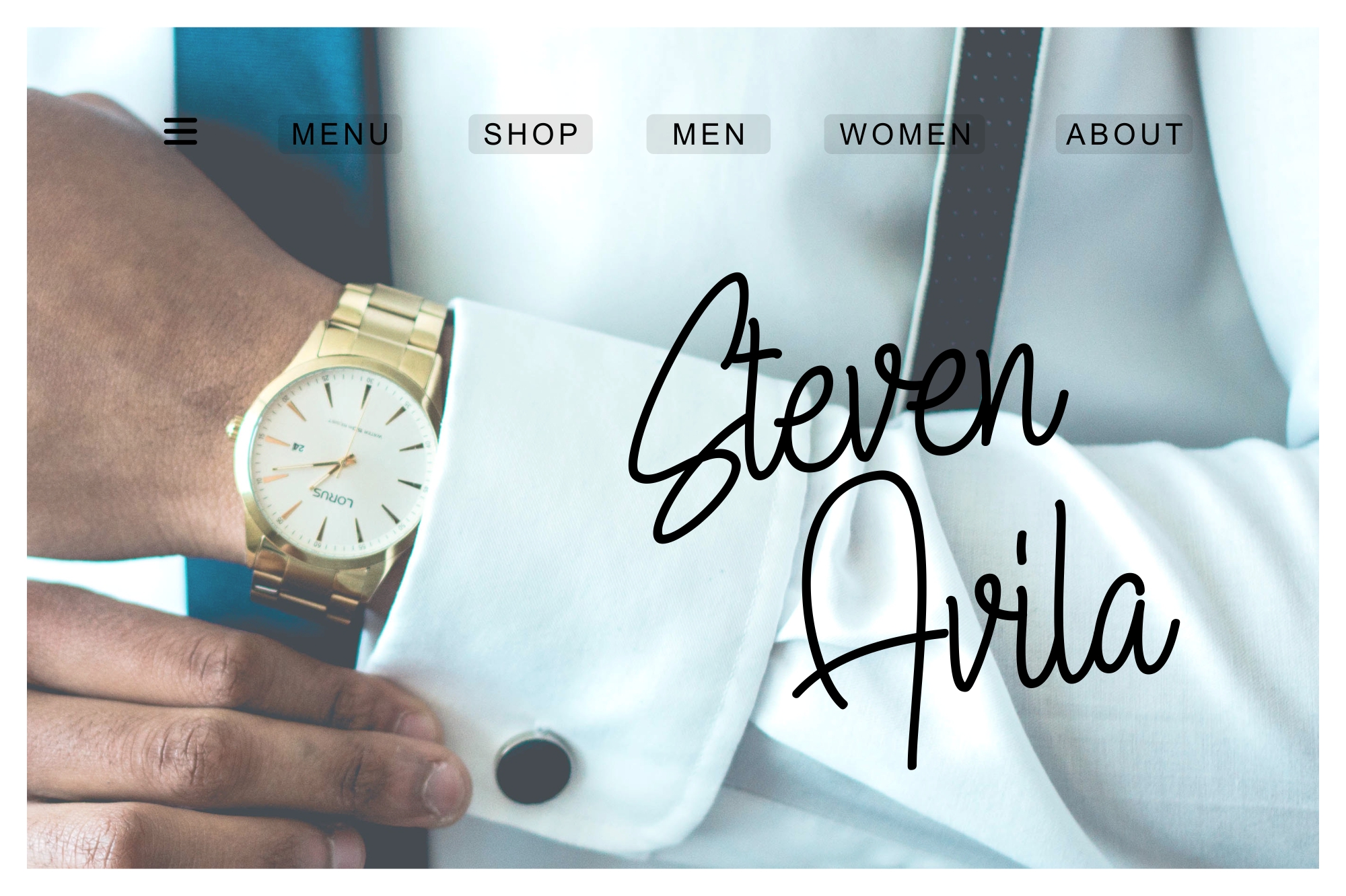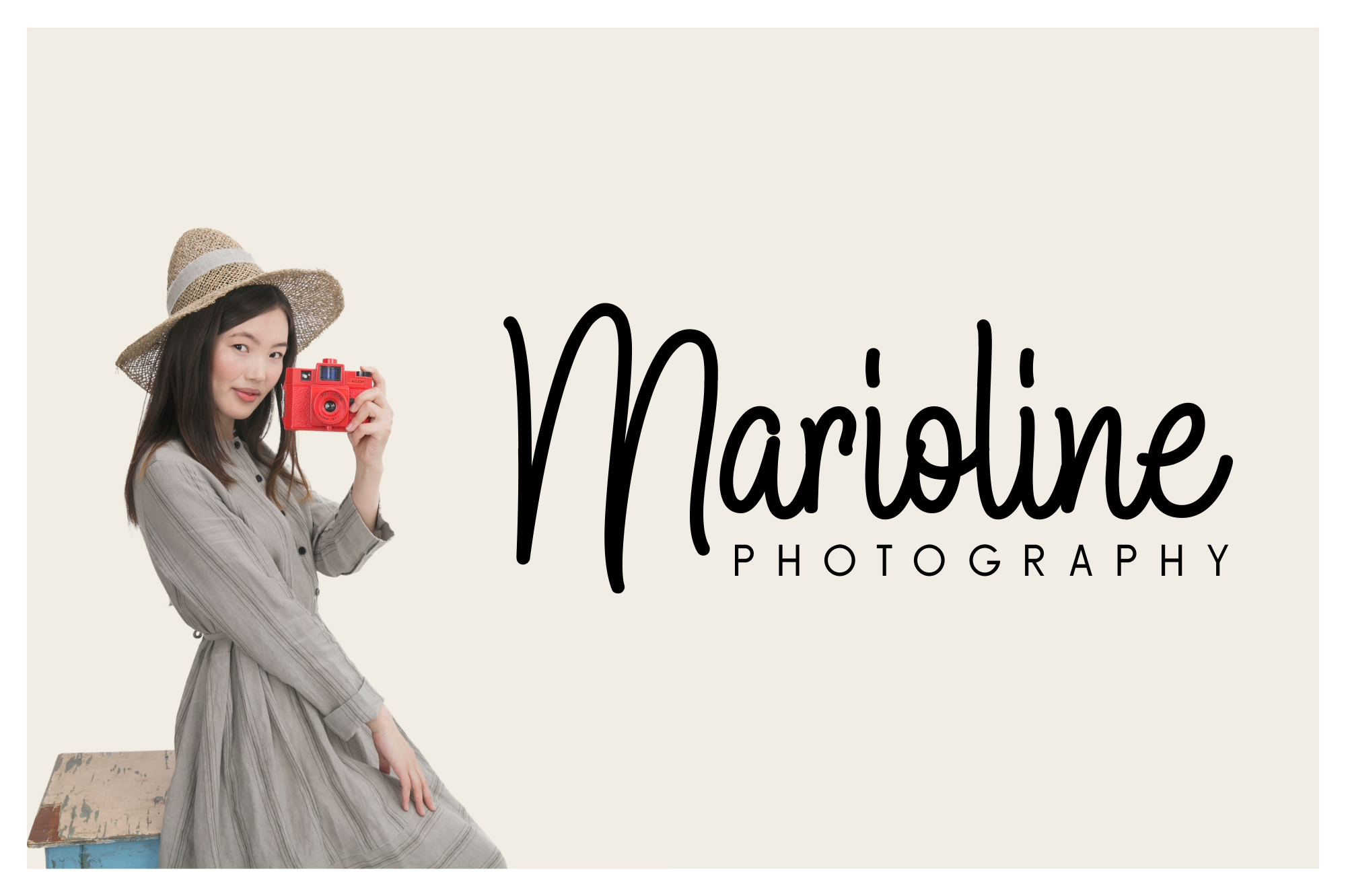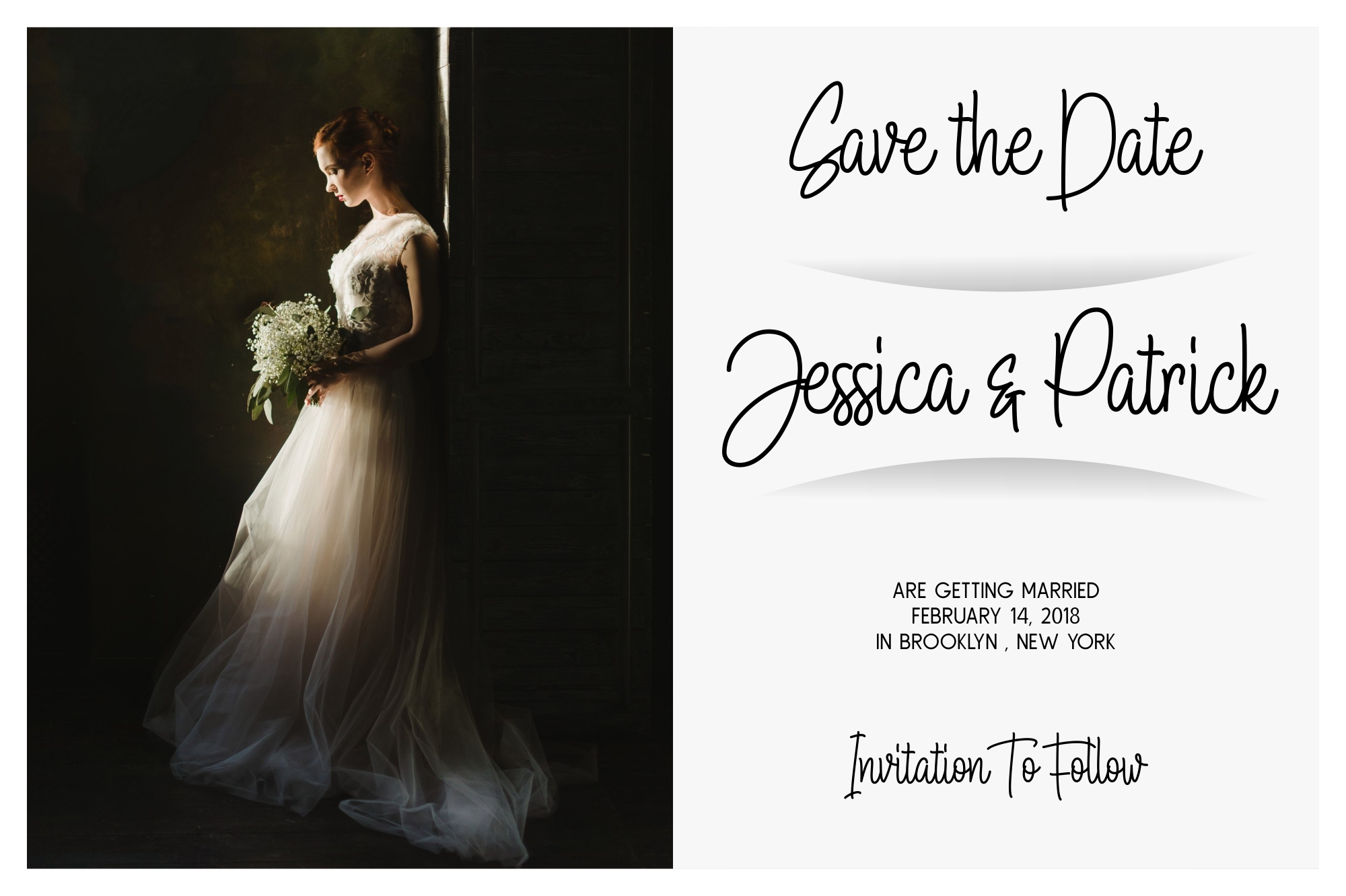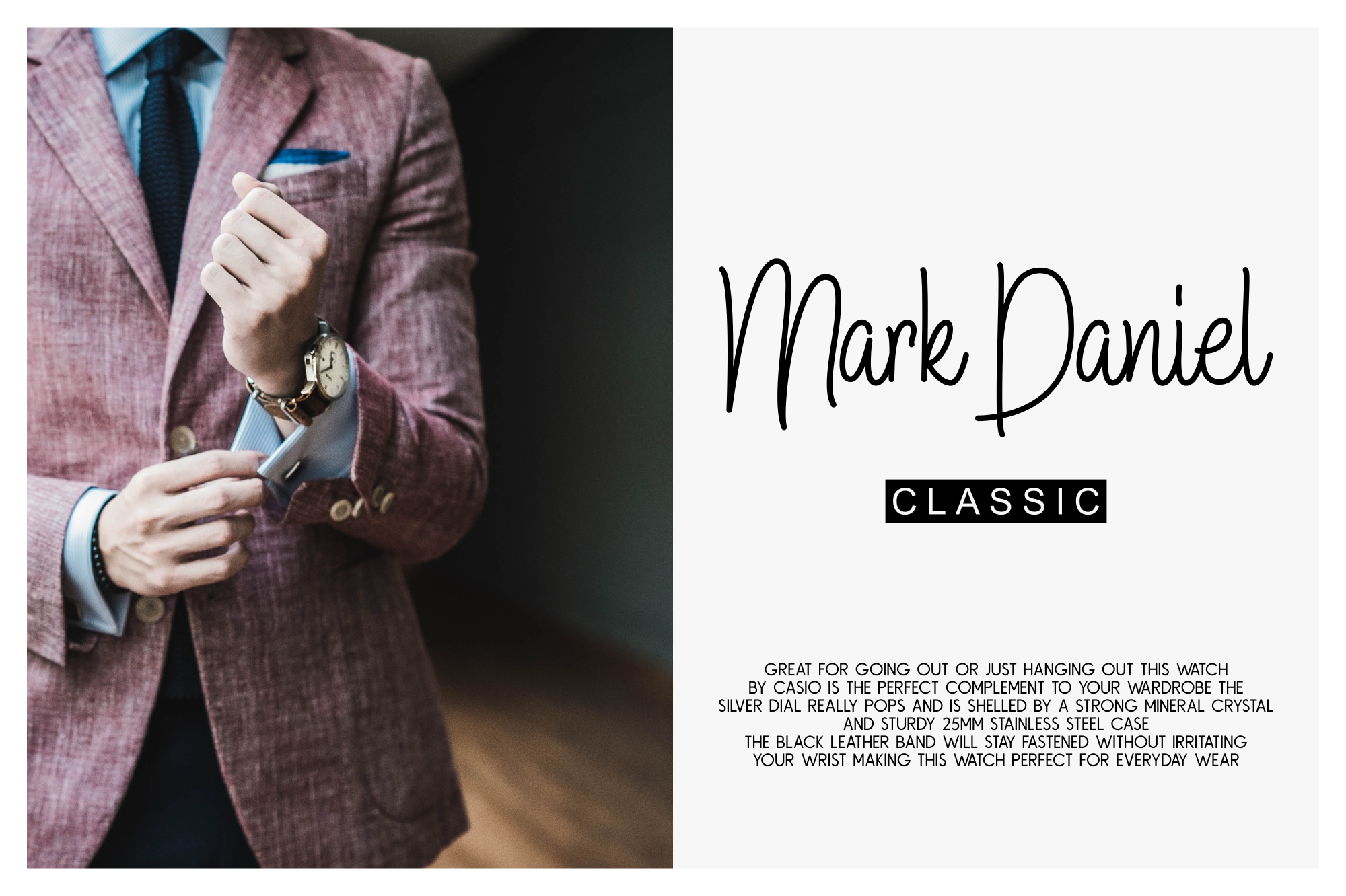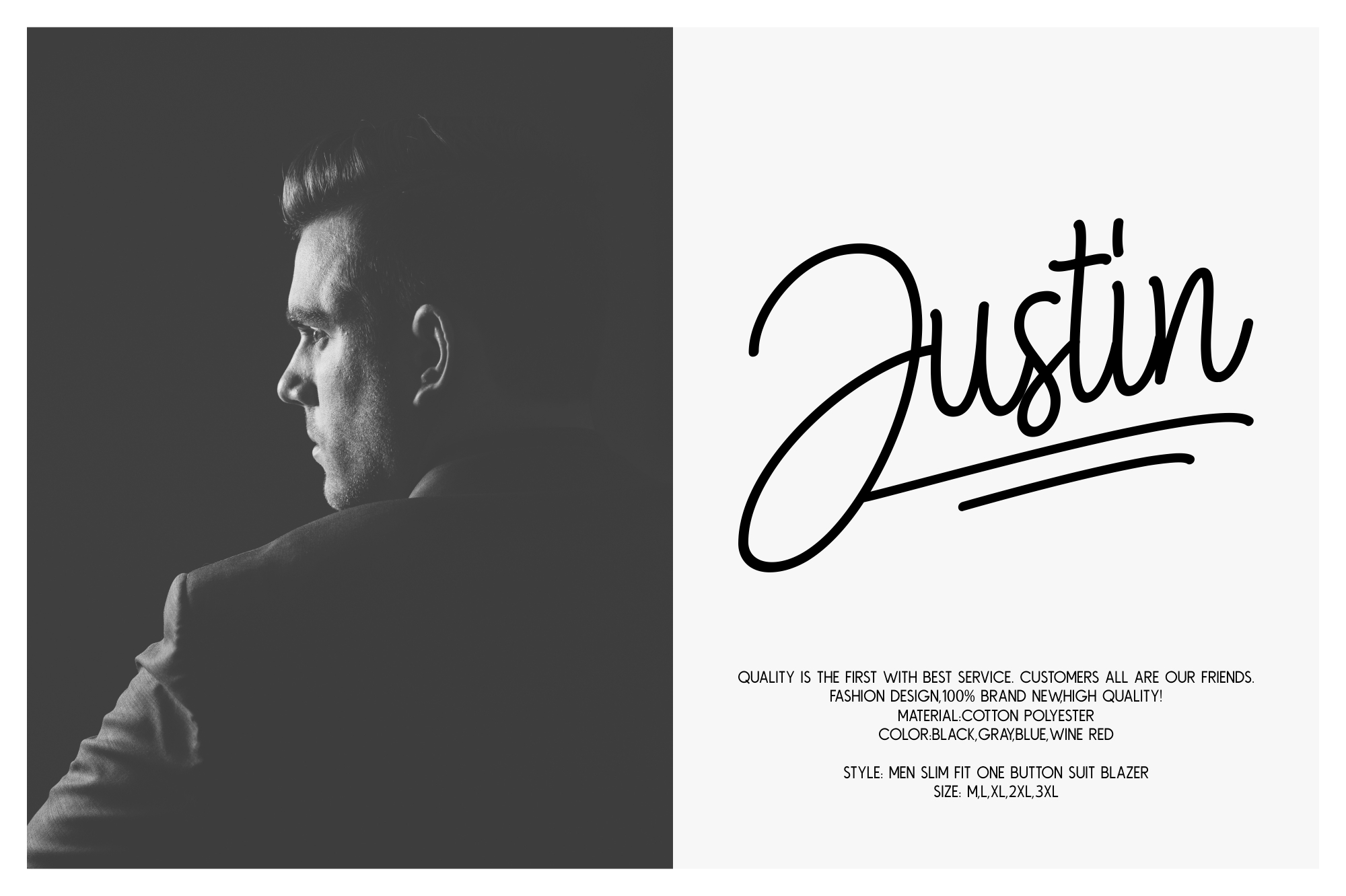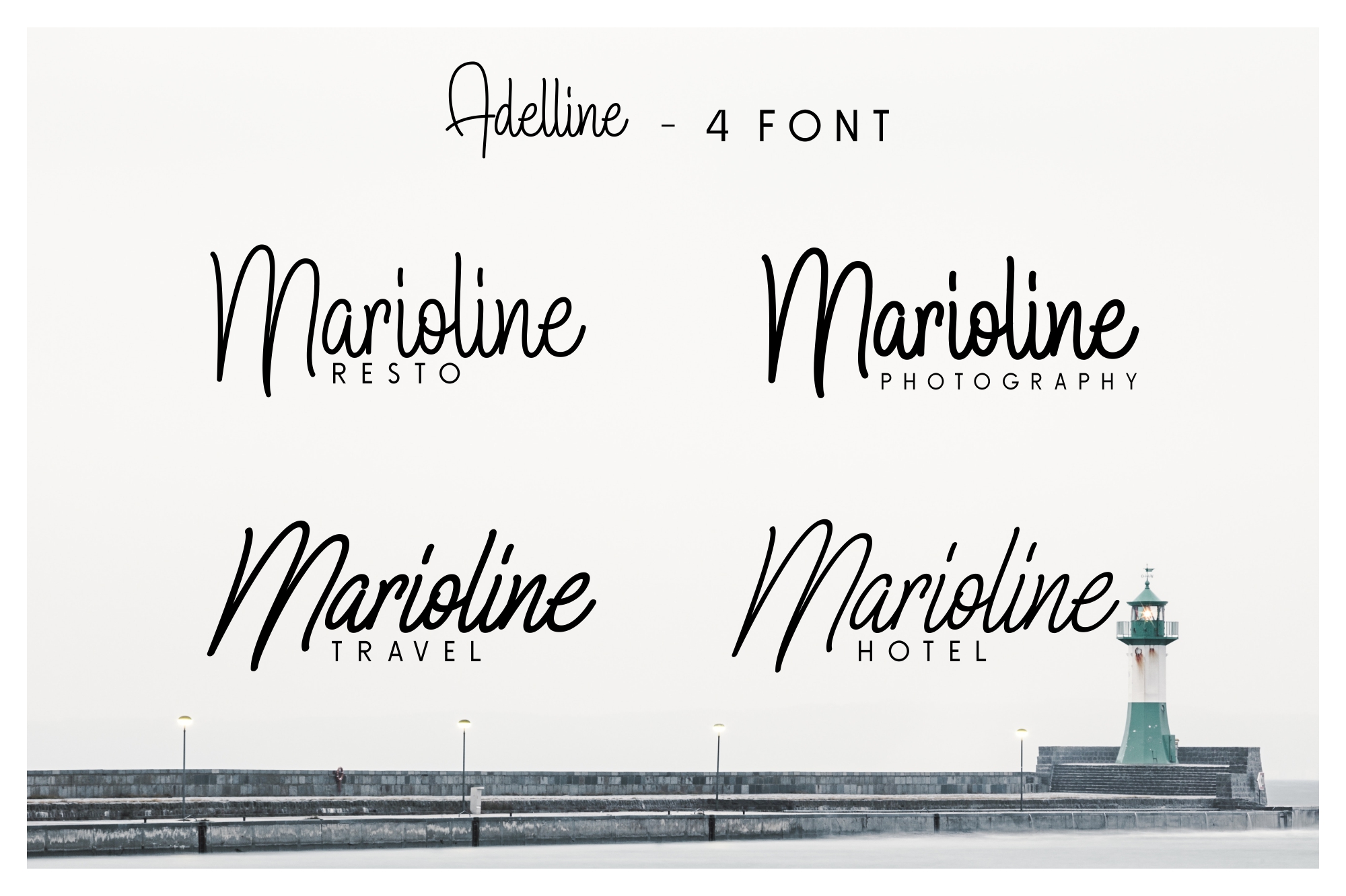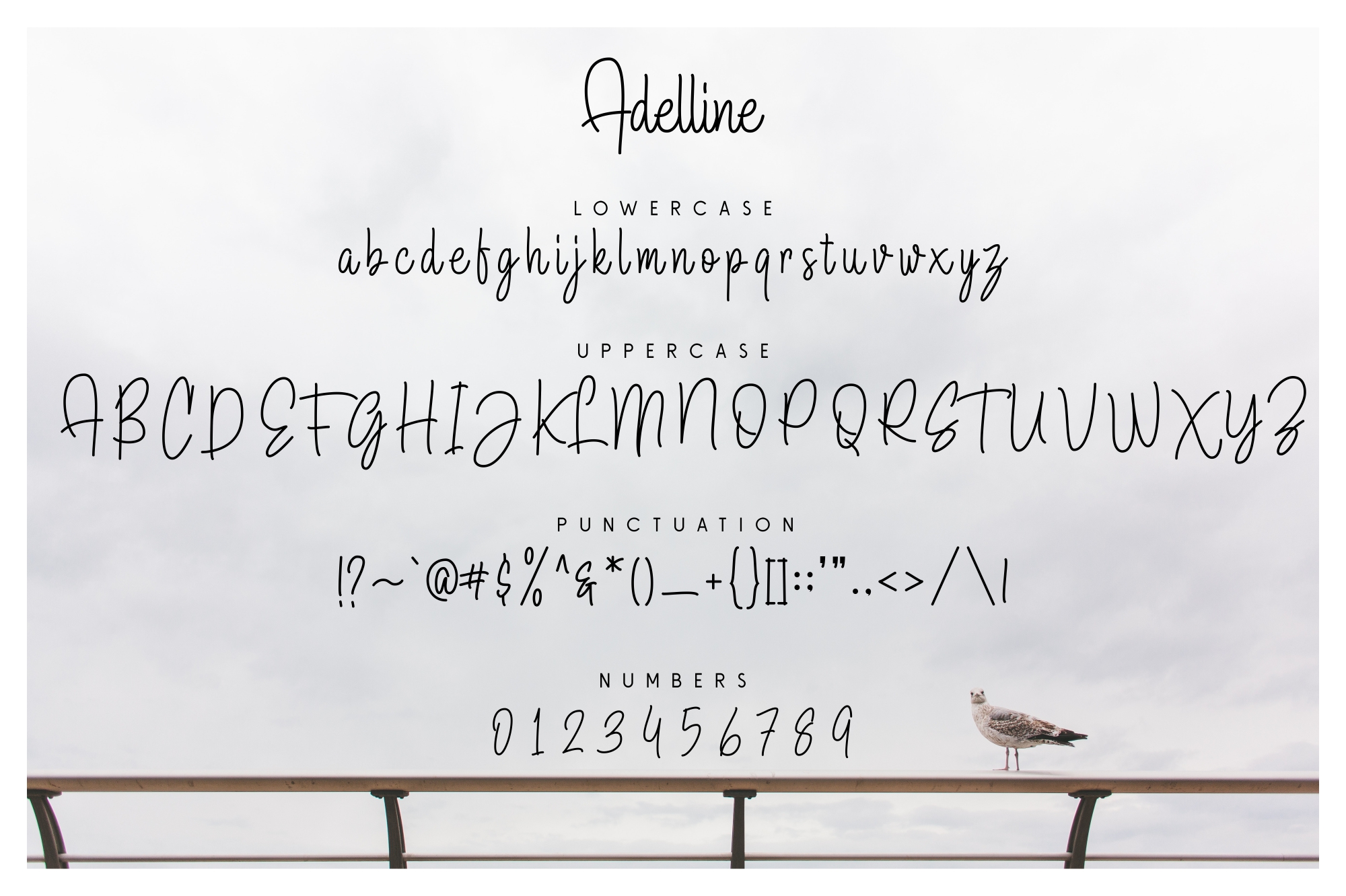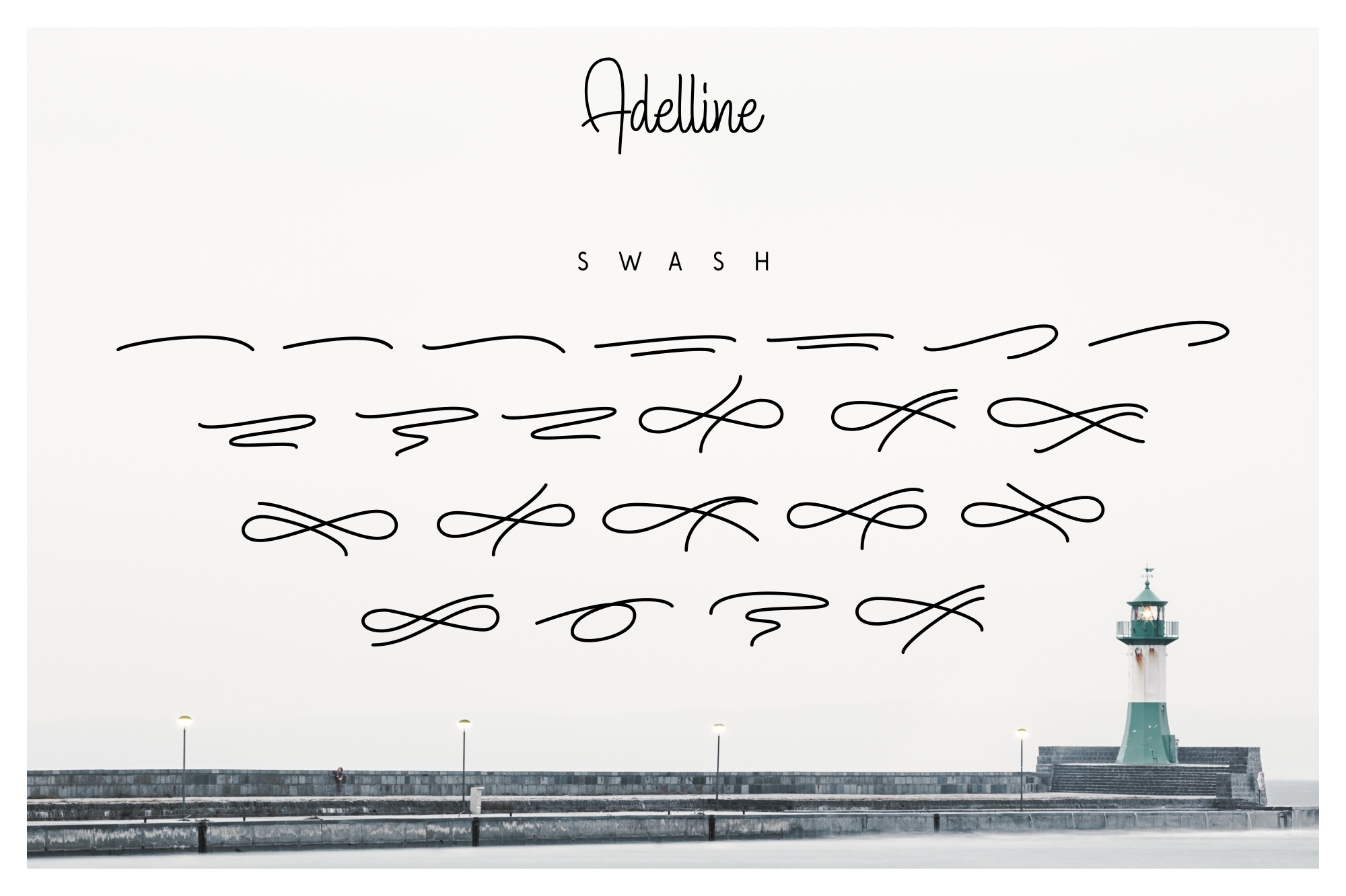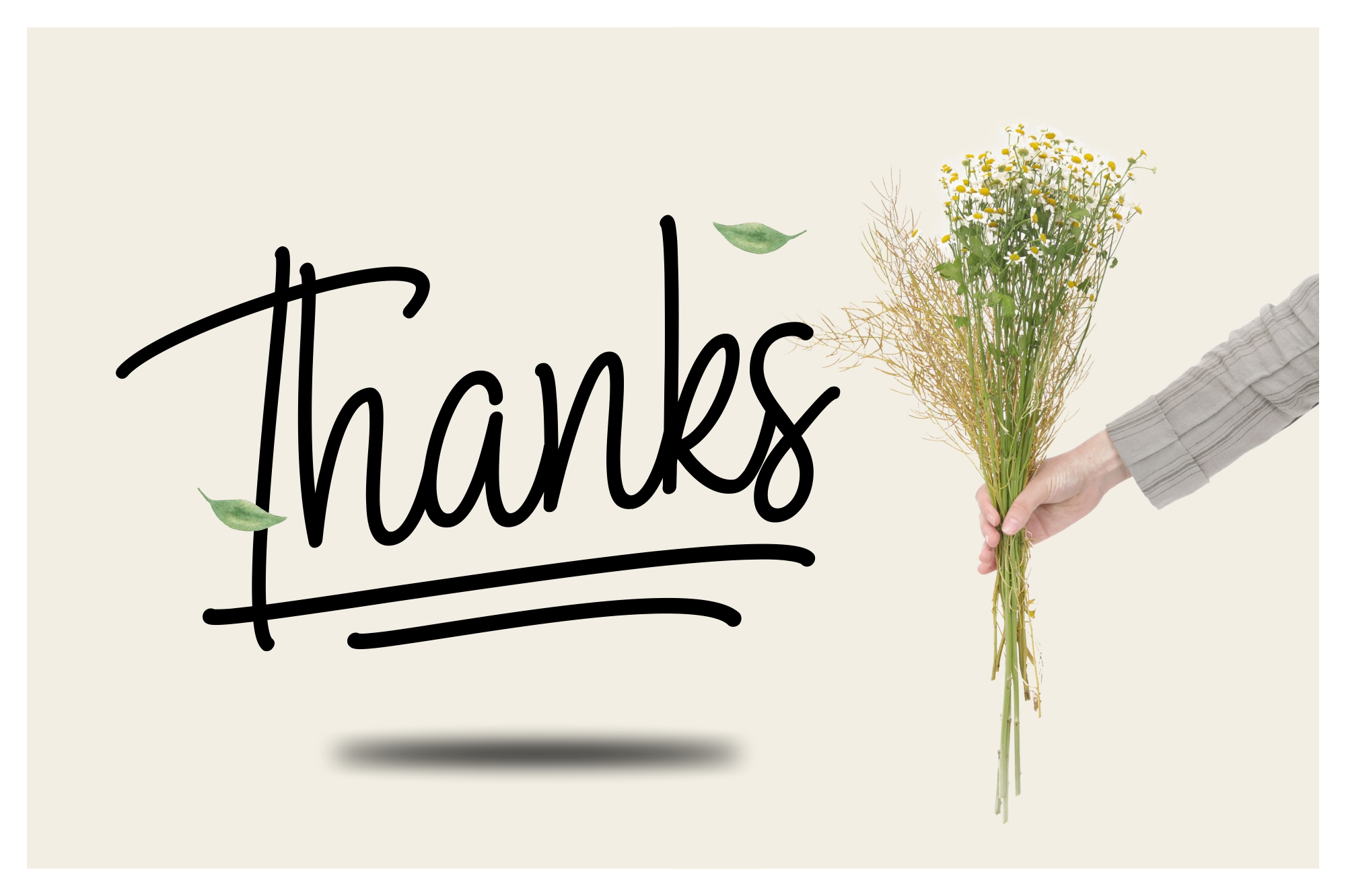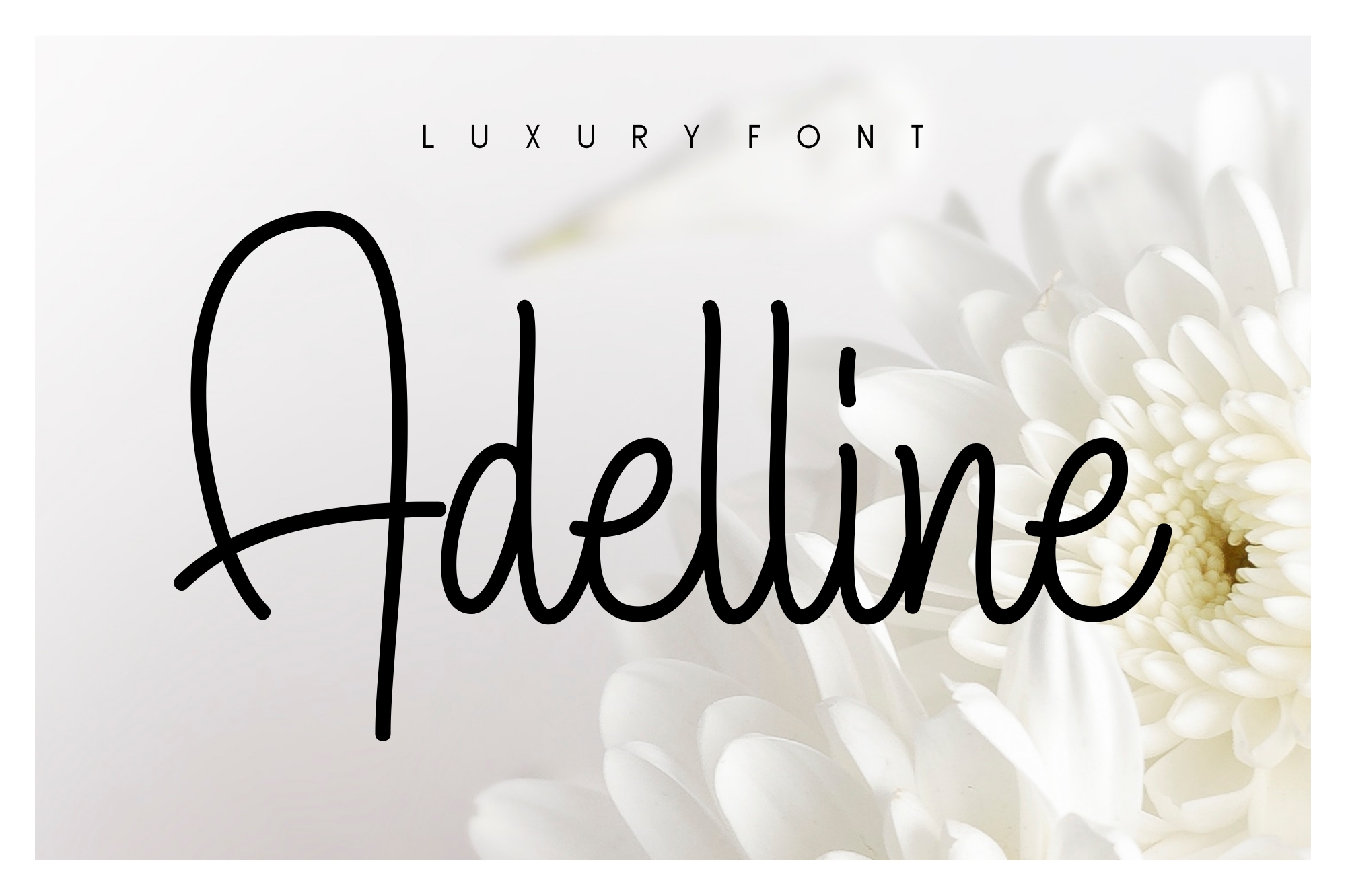
Adelline Font
About Adelline Font
Adelline is a handwritten signature font that coming with alternates & swash. Its casual handwritten look makes it the perfect fit for a wide range of display designs.